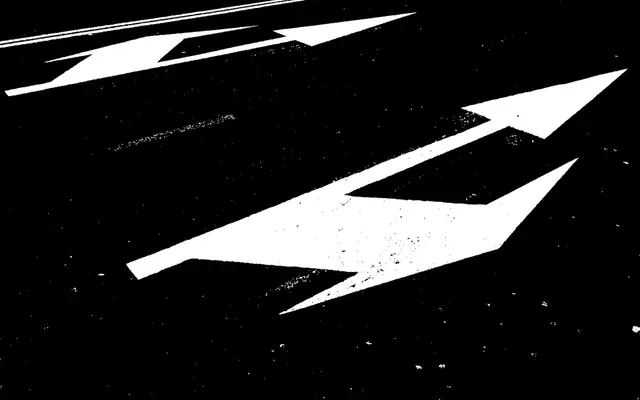
Manoeuvre
A reverse-contrast display family by Anselm Felter derived from the anamorphic distortion of asphalt road-marking lettering, stretched across six weights to the point of near-abstraction.
Manoeuvre takes the horizontal weight emphasis of traffic lettering, a distortion born of functional necessity to correct perspective at acute viewing angles, and translates it into a six-weight display family running from Thin to Heavy. The contrast between horizontals and verticals intensifies progressively across the range, culminating in a Heavy style where letterforms approach graphic abstraction. OpenType features include ball terminals, a seriffed I variant, slashed zero and arrow dashes, giving the family further expressive range beyond its structural conceit.
Manoeuvre employs deliberate horizontal weight distribution inspired by anamorphic asphalt road markings, producing a reverse contrast structure that distorts conventional letterform logic for expressive, display-oriented effect.